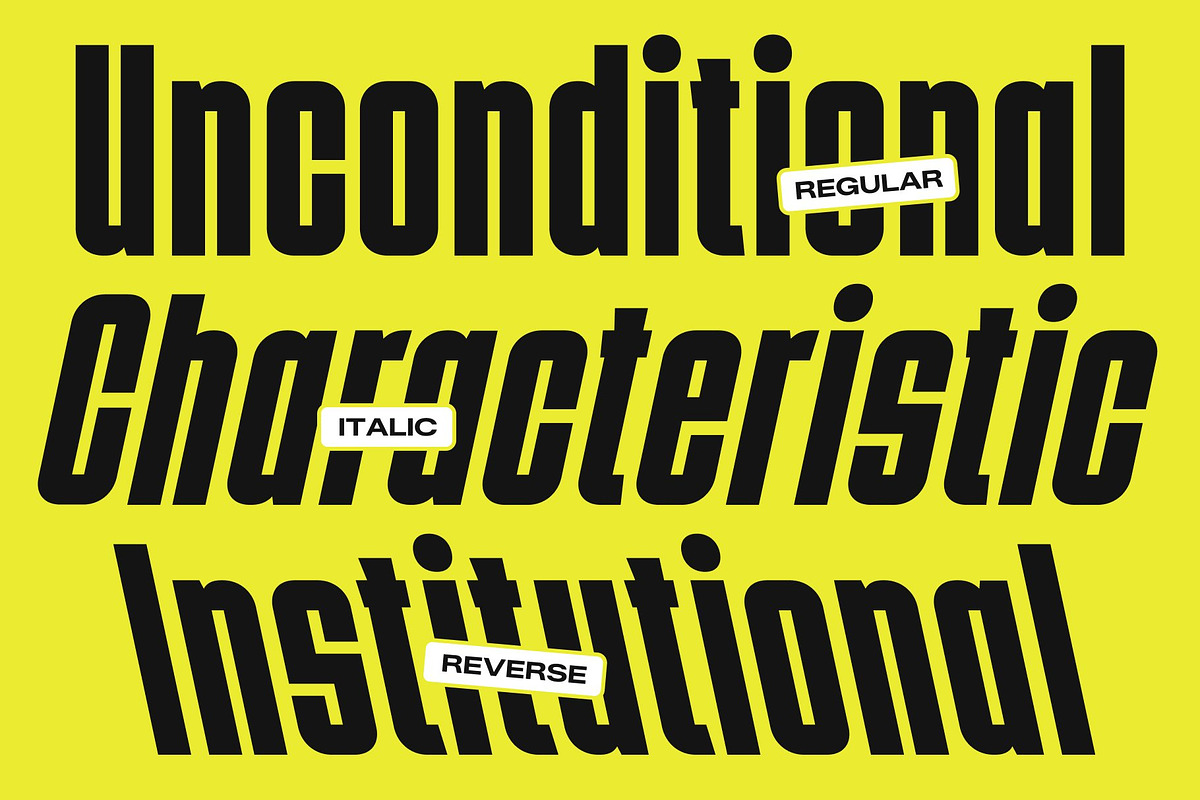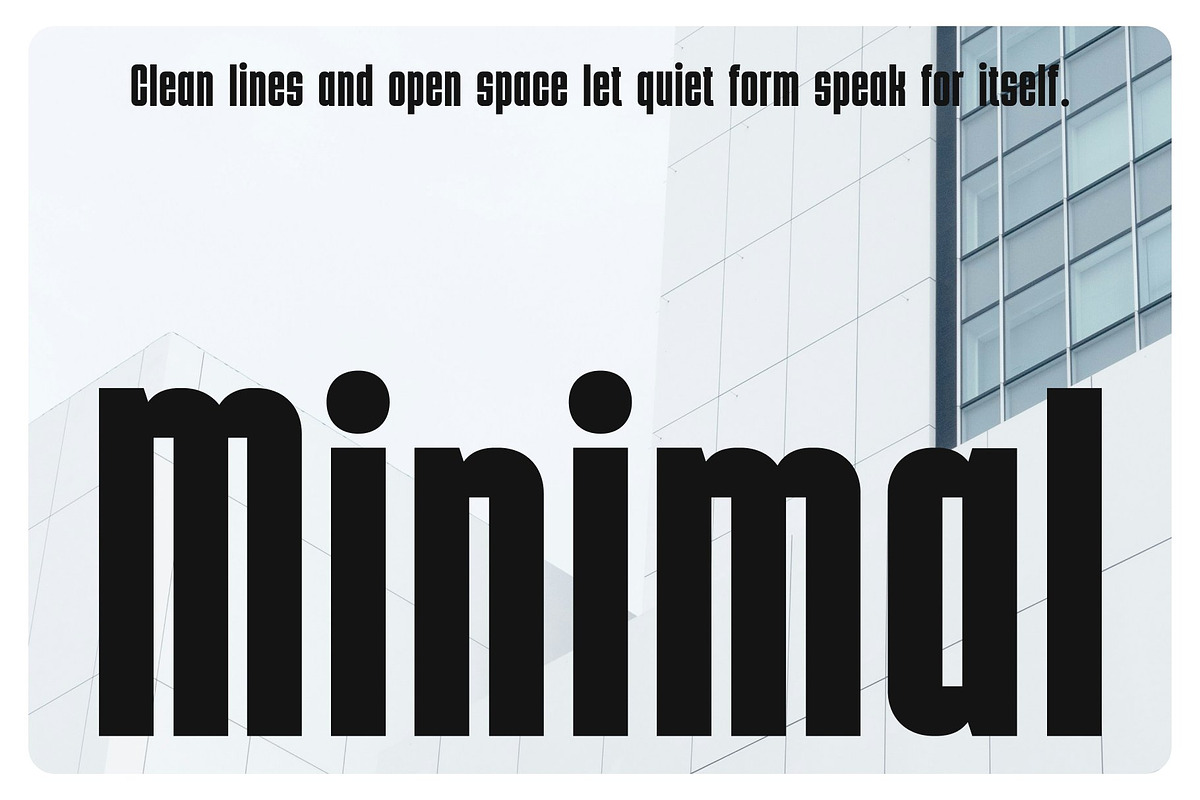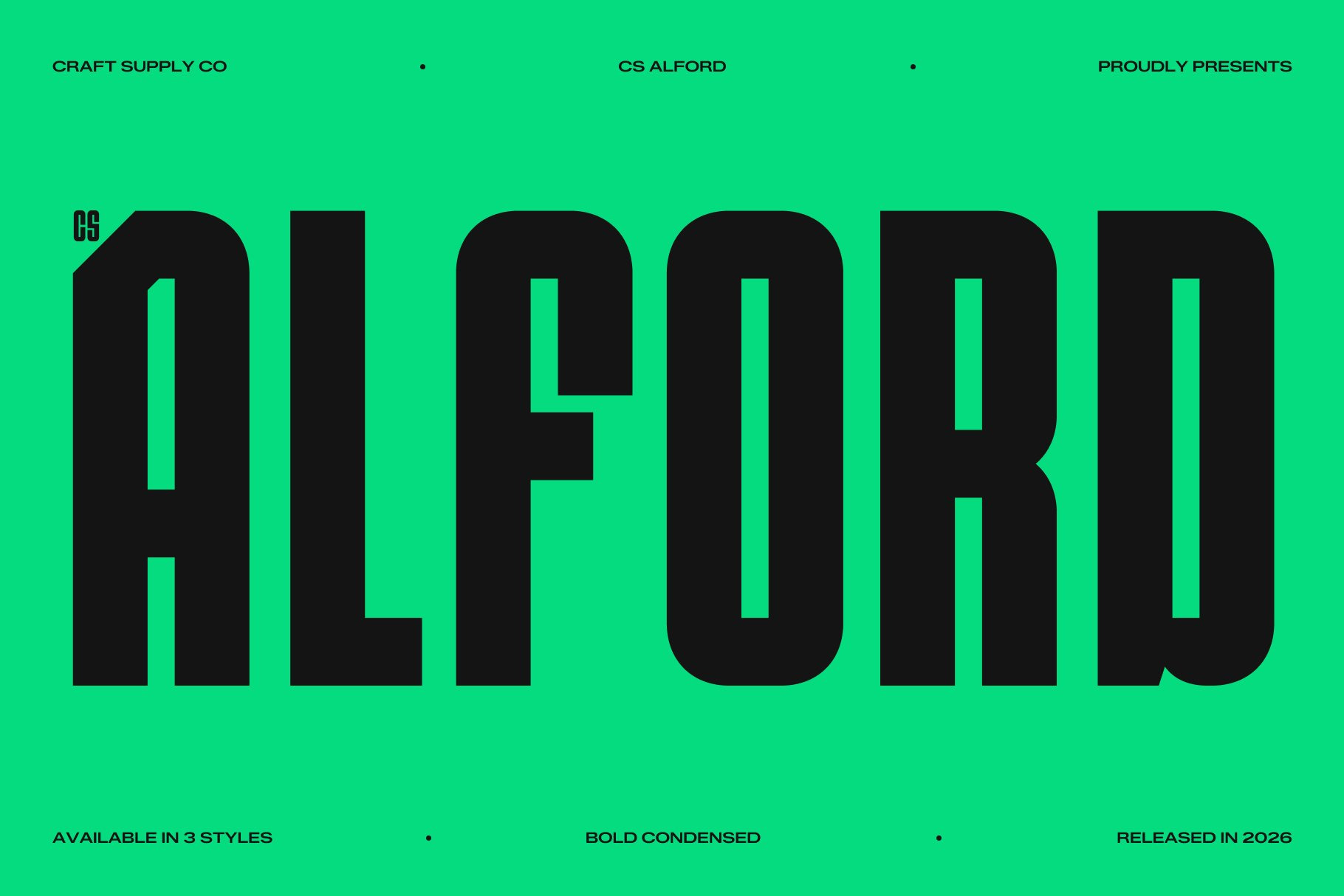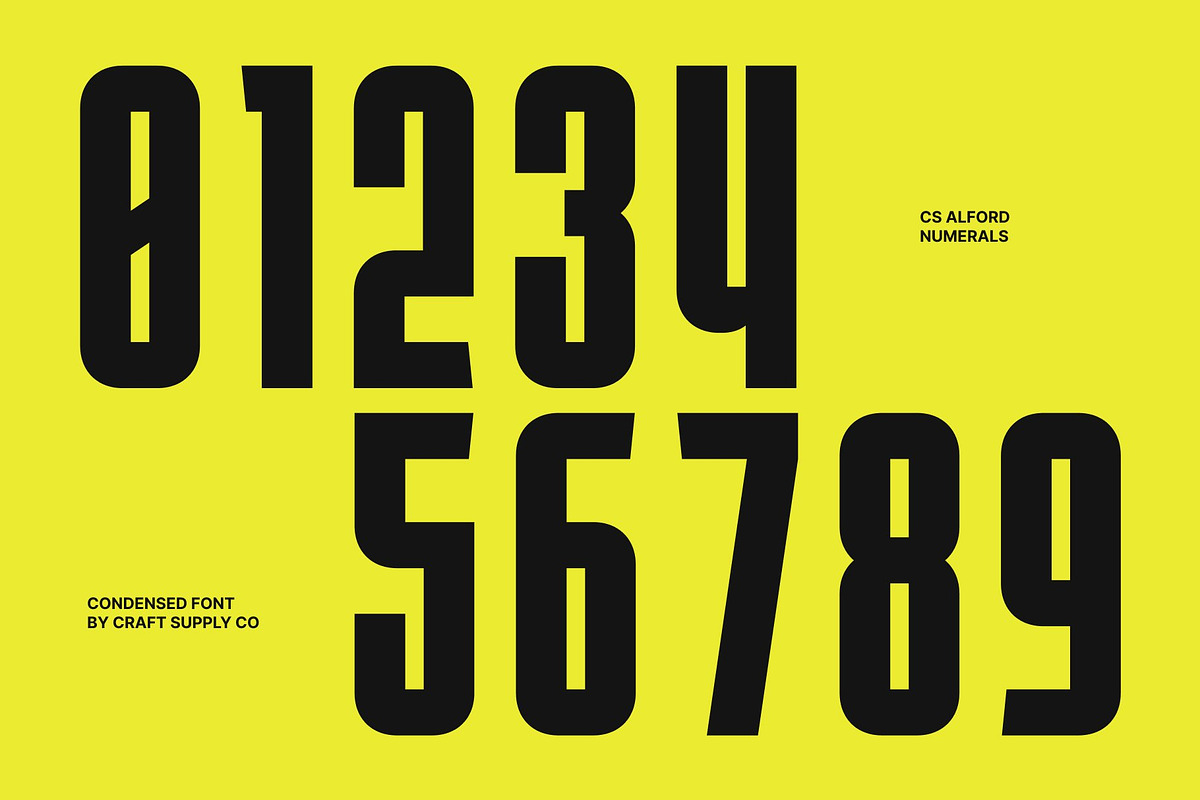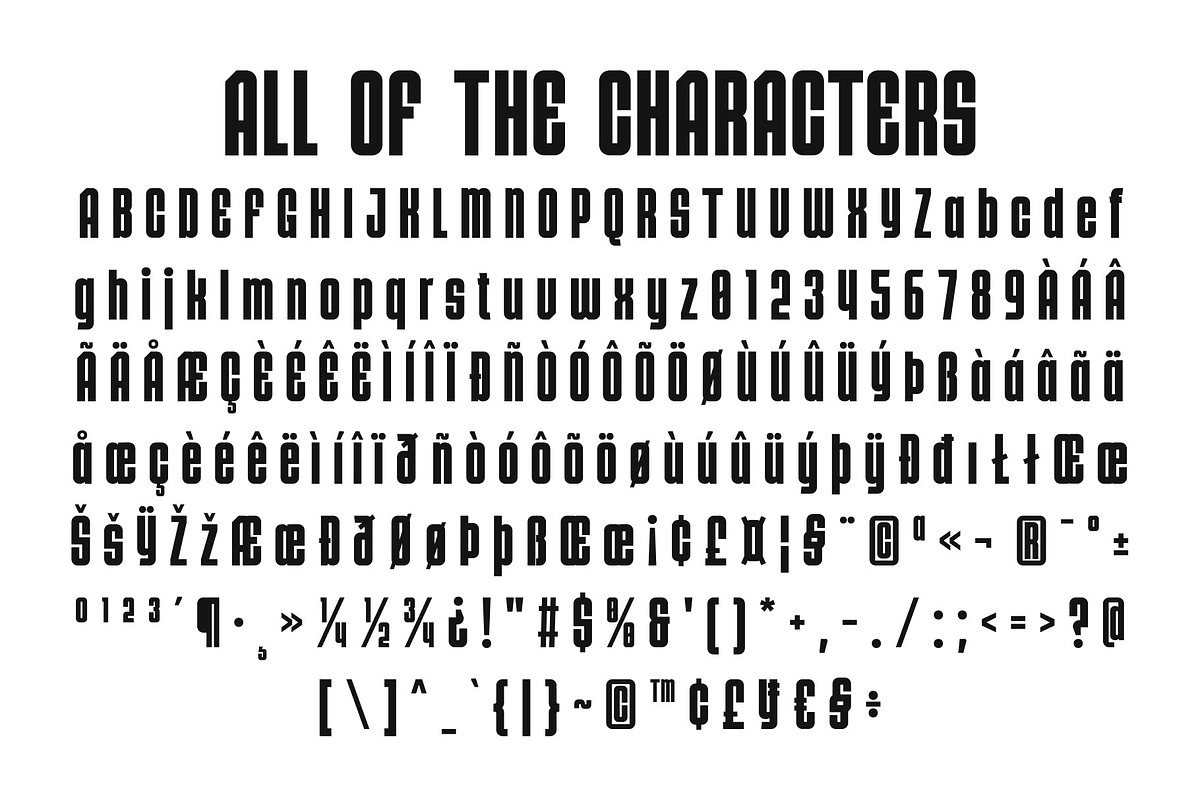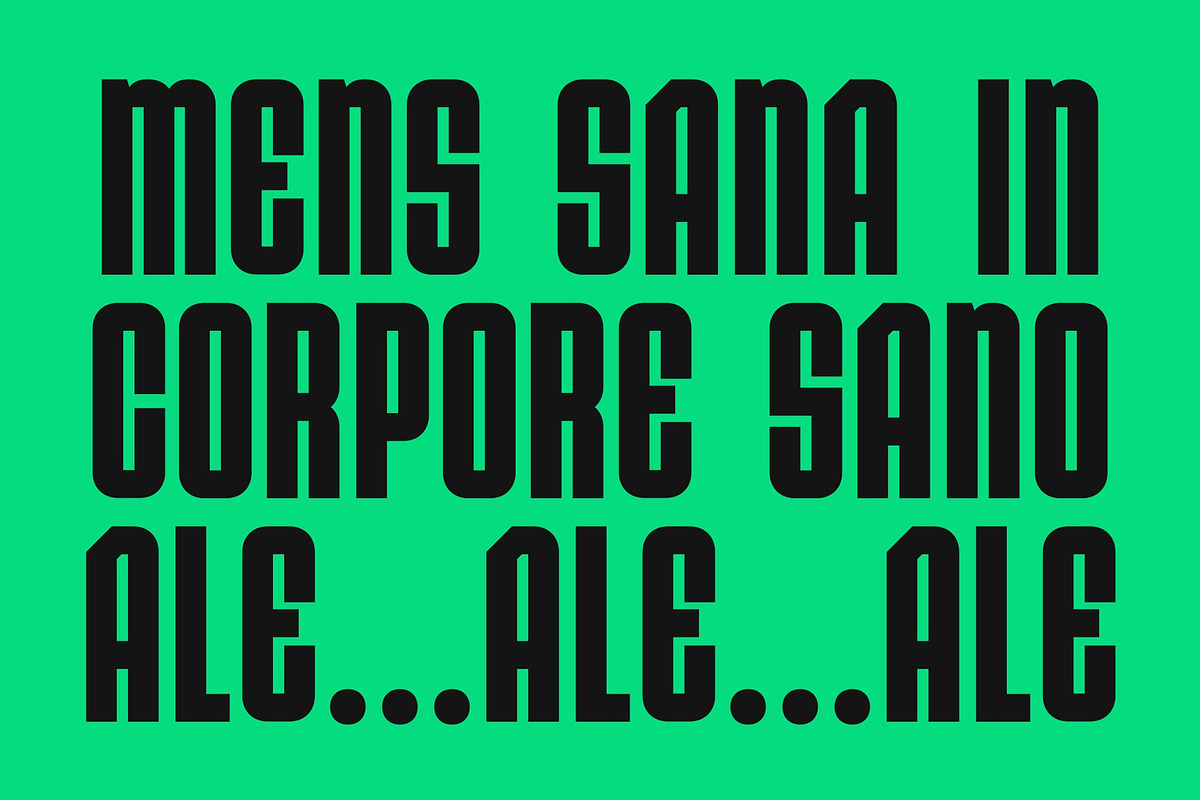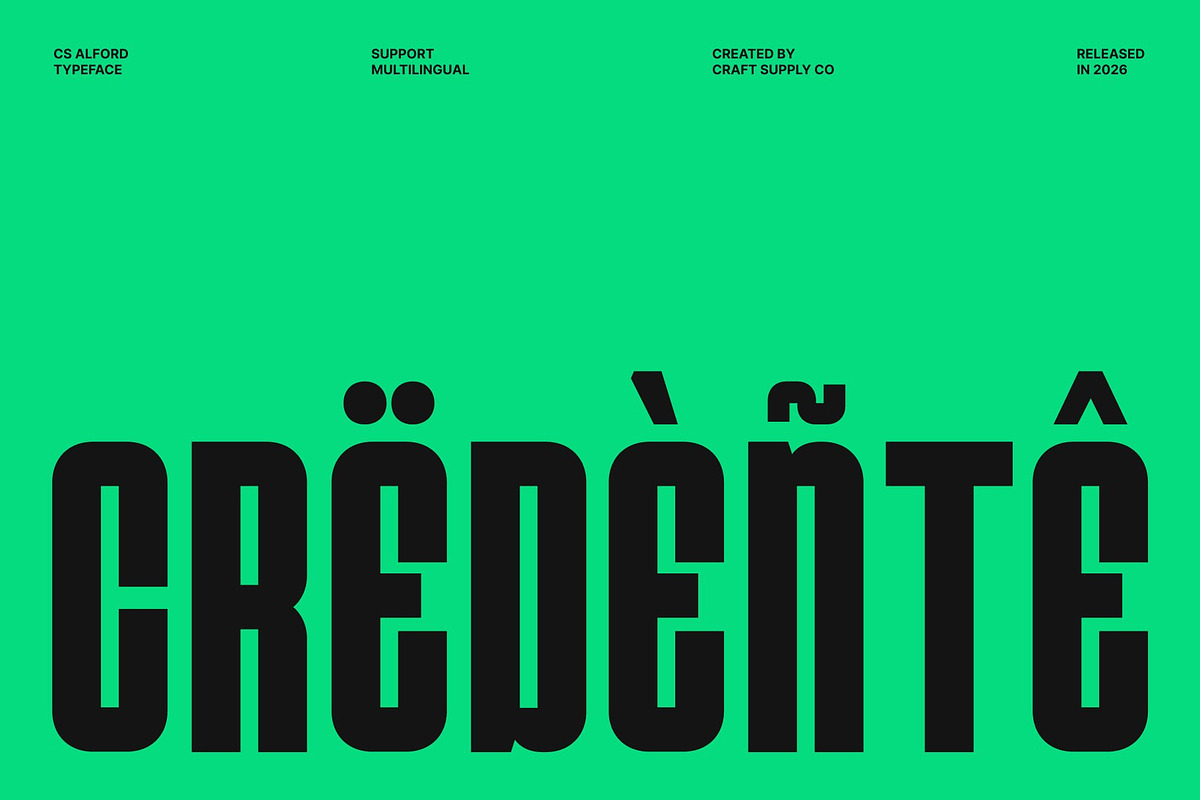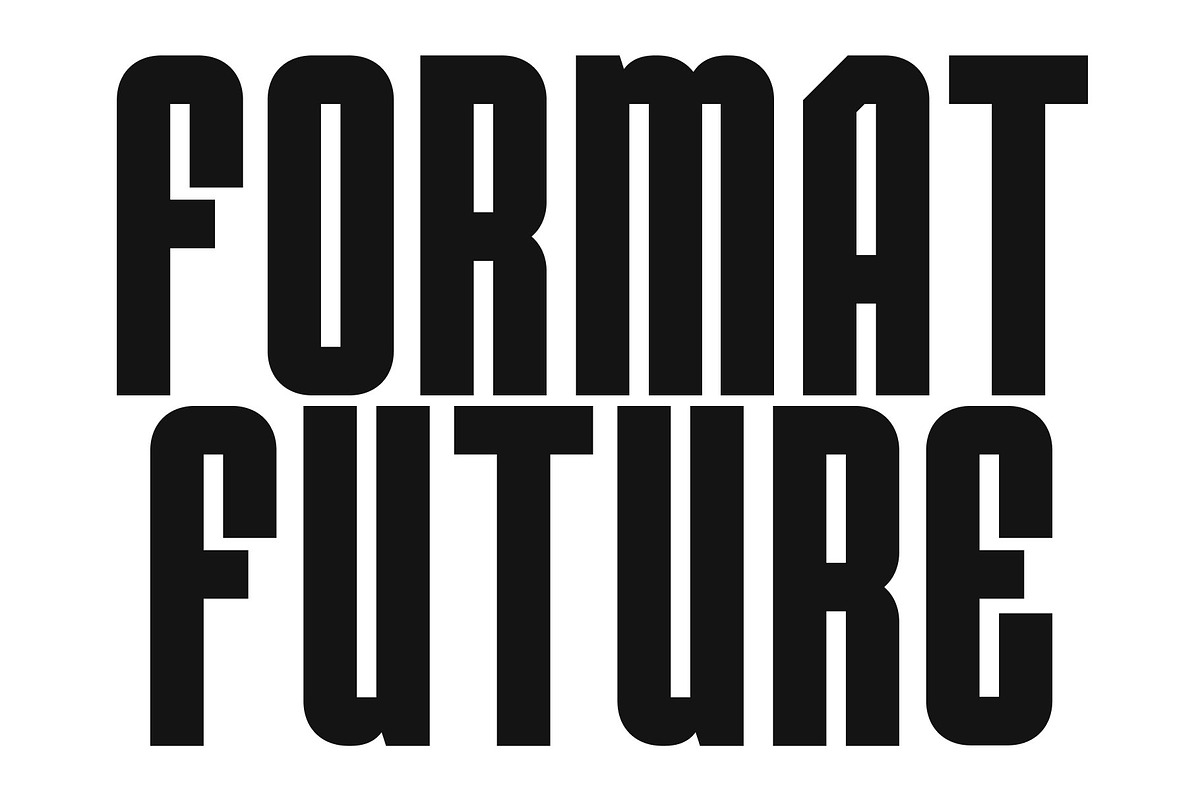
CS Alford – Condensed Font
CS Alford – Condensed Sans Serif with Bold Precision
Condensed Sans Serif Built for Efficiency This is a compact and modern condensed sans serif font designed to deliver strong visual impact in limited space. Its narrow proportions allow designers to fit more words into tighter layouts without sacrificing clarity. This efficient structure makes it an excellent choice for bold and space-conscious typography.
Strong Presence with Modern Character Crafted with clean lines and confident proportions, this font communicates strength and modernity in every letter. The balanced construction ensures that each character feels stable and assertive, helping your message stand out clearly in busy compositions.
Clear Readability with Bold Impact Even with its condensed form, this font maintains impressive readability across a wide range of sizes. The thoughtful spacing and carefully shaped letterforms ensure legibility while still delivering a striking, high-impact appearance that captures attention quickly.
Perfect for Headlines, Posters, and Branding This font thrives in headlines, posters, and branding where bold communication is essential. Its compact width and confident personality make it ideal for creating strong visual hierarchies in both print and digital projects, delivering clarity, efficiency, and modern appeal.
CS Alford Regular
CS Alford Italic
CS Alford Reverse Italic